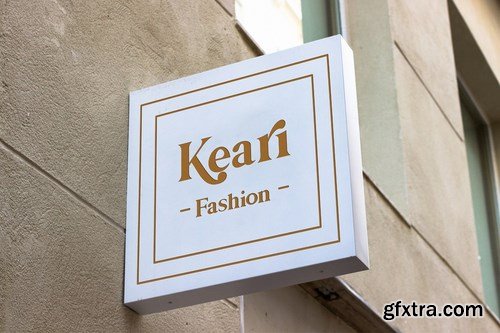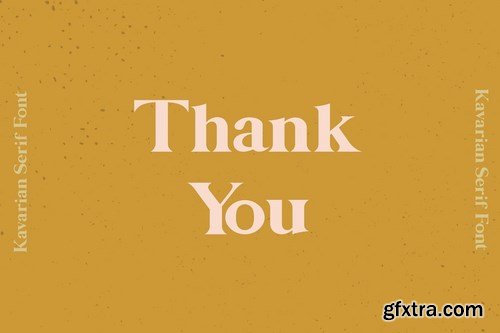
Kavarian Serif Font is a handmade Modern Elegant Serif Handmade Typeface handlettering, which is combining modern and classic typography with some awesome alternates. Yes we back to early 1800s, bring classic touch on this decade.